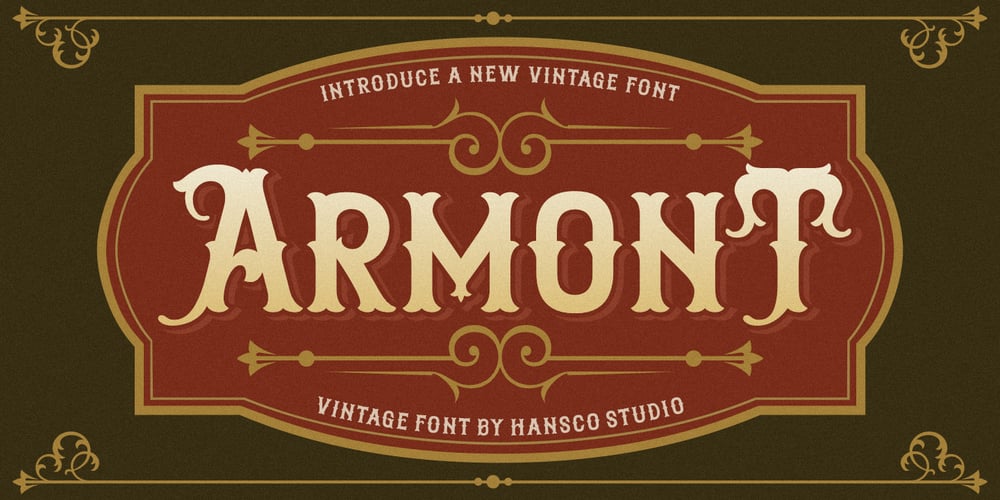
Armont
Armont font
Armont Font Family was designed by Burhan Afif and published by HansCo. Armont contains 1 styles and family package options. Armont is a Vintage typeface font, it will add an old-time charm to any design project. This collection of font is perfect for everything your project with vintage, retro, wild or organic style. Features : Uppercase & Lowercase ( in All Caps ) Numbers & Punctuation Multilingual Alternate character & ornament How to access alternate / ornament ? : https://hanscostudio.com/tutorial/Enjoy!